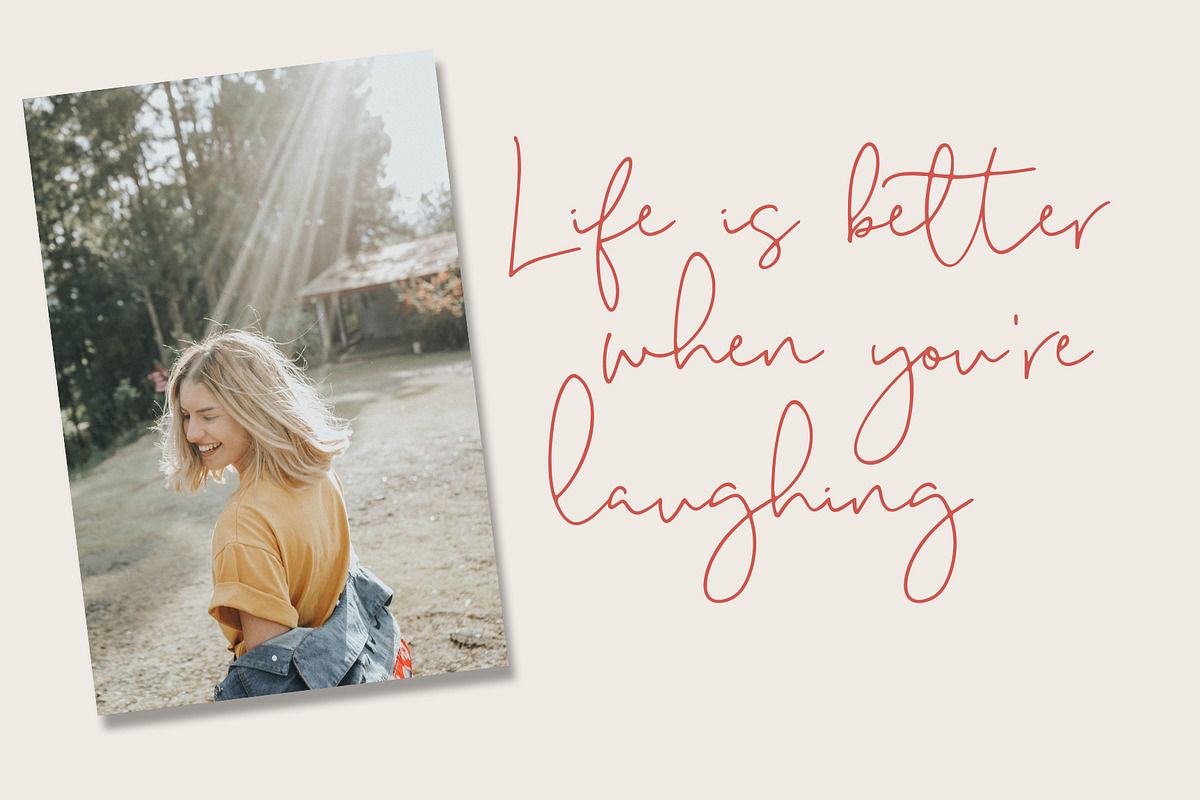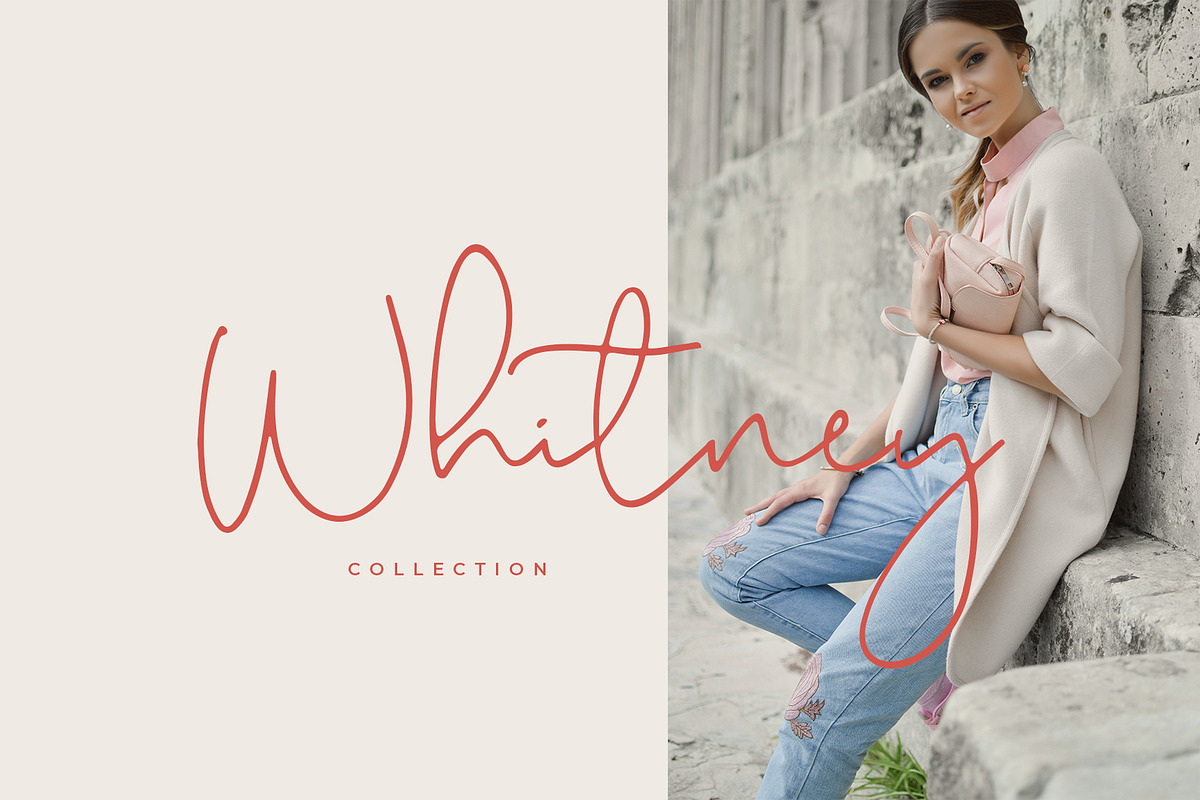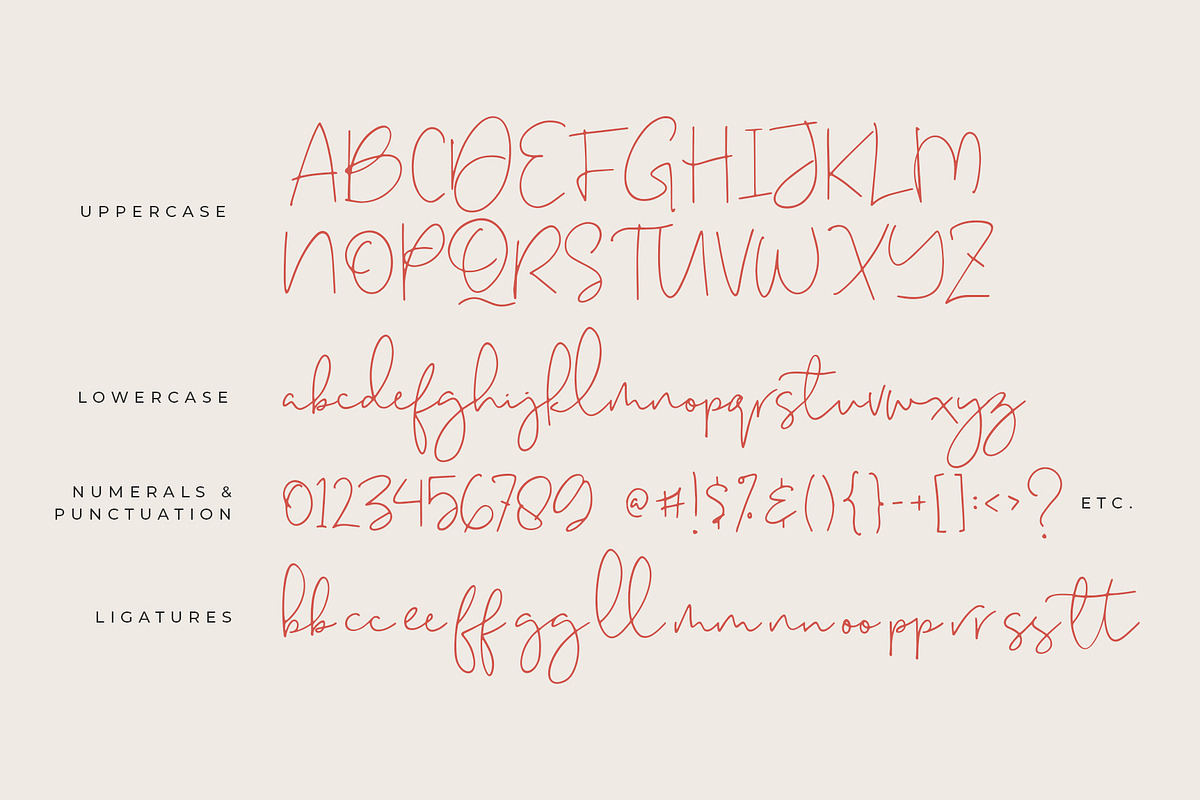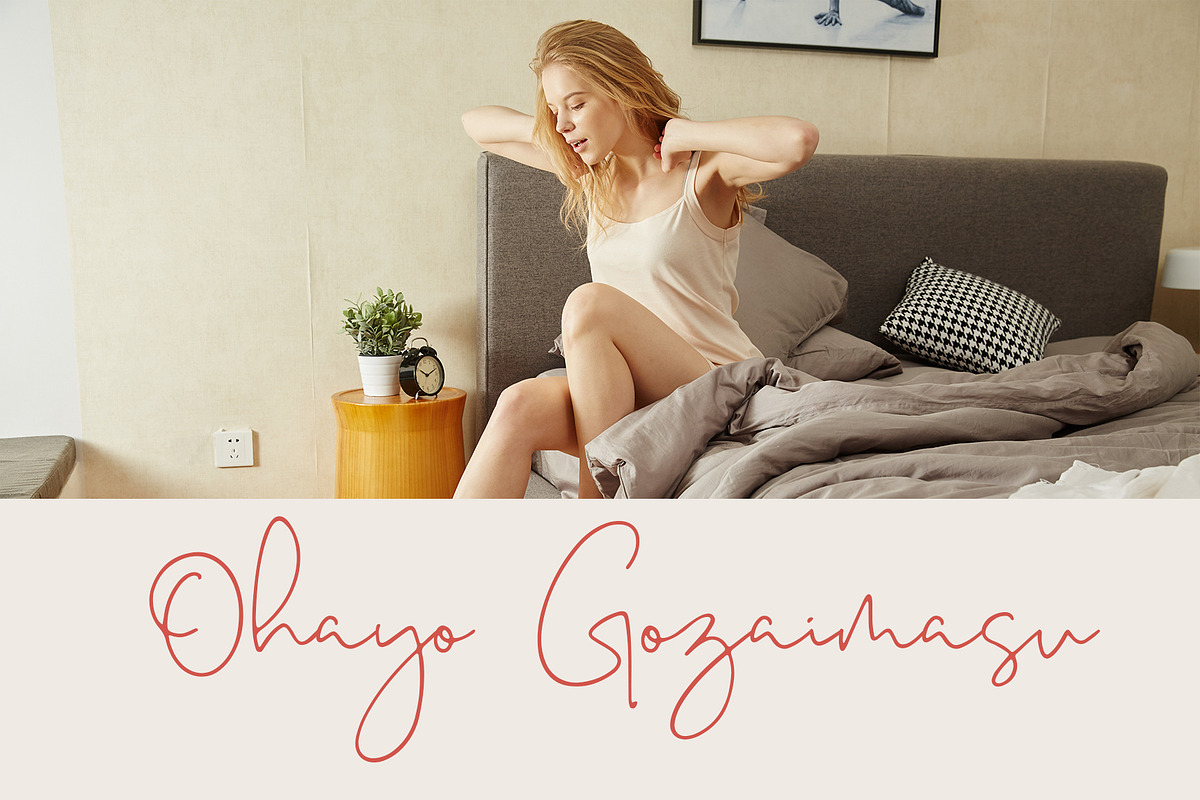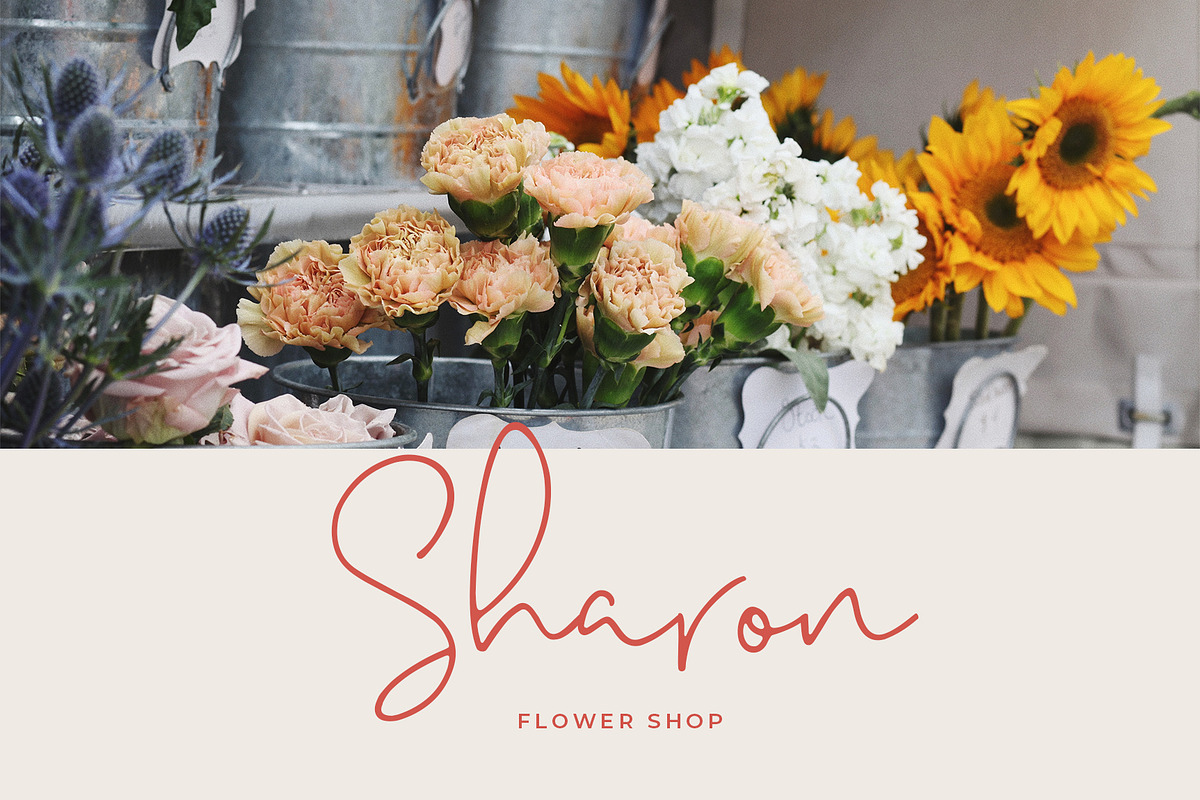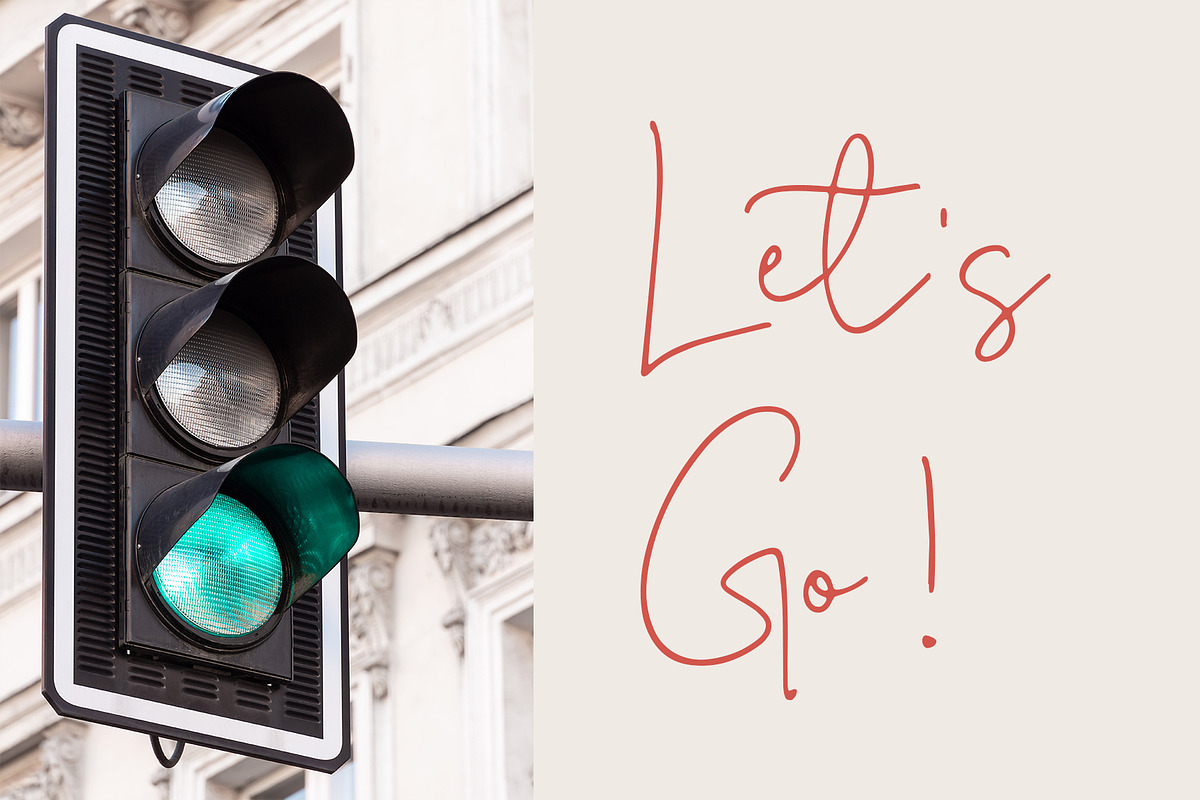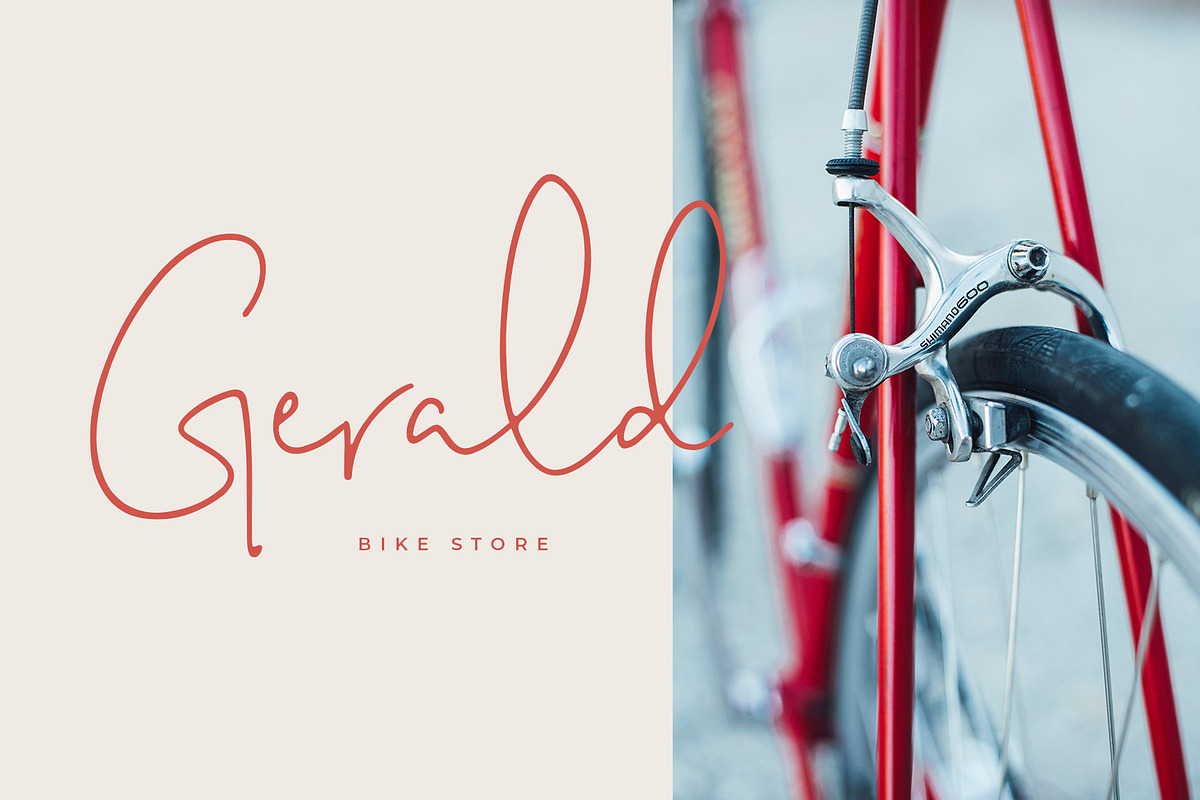
Melatti - Handwritten Font
Melatti is a beautiful handwritten font with an amazing feel. It will add a smart charm to any design project!
Melatti - Handwritten Font by Awanstudio fits naturally into Branding, posters, packaging, typography.